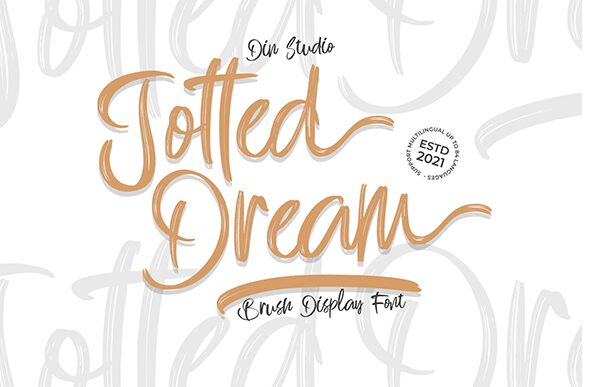
Jotted Dream is a script font designed by Donis Miftahudin. It features a unique brush style that adds an elegant, creative flair to any project. Perfect for logos, invitations, cards, and more!
Jotted Dream is a display brush that is combined with elegant brush style. Every swash, stroke, and
curve was created to entice happiness and elegance. Great choice for your logo, book cover, poster, tshirt,branding, and advertisement needs.